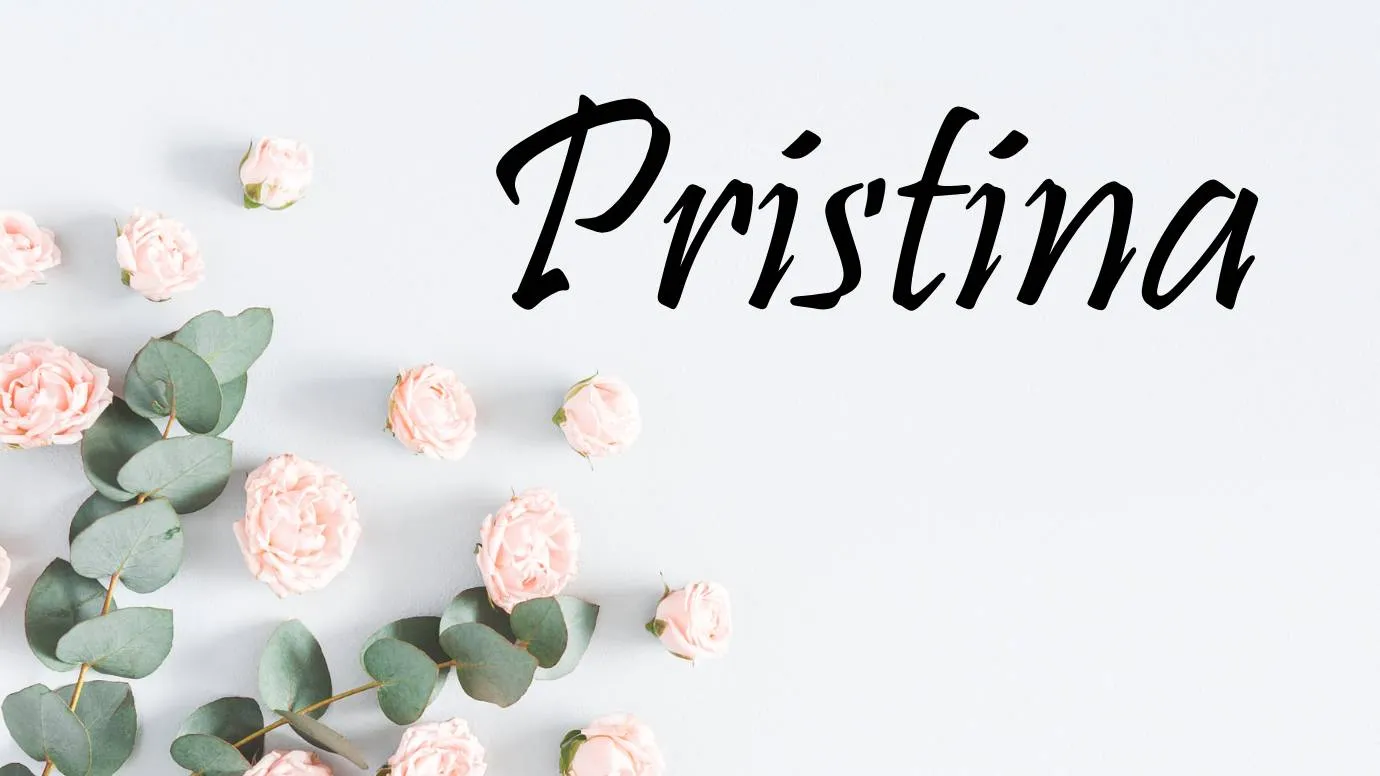
Pristina Font Family is an incredible and impeccable font known as Pristina Font. It is a member of the Calligraphy font category. Ideal for use in MS Word, Canva, and Adobe Photoshop, this beautiful font family comes from the creative mind of the refined designer, Phill Grimshaw.
NamePristina Font
TypeCalligraphy
DesignerPill Grimshaw